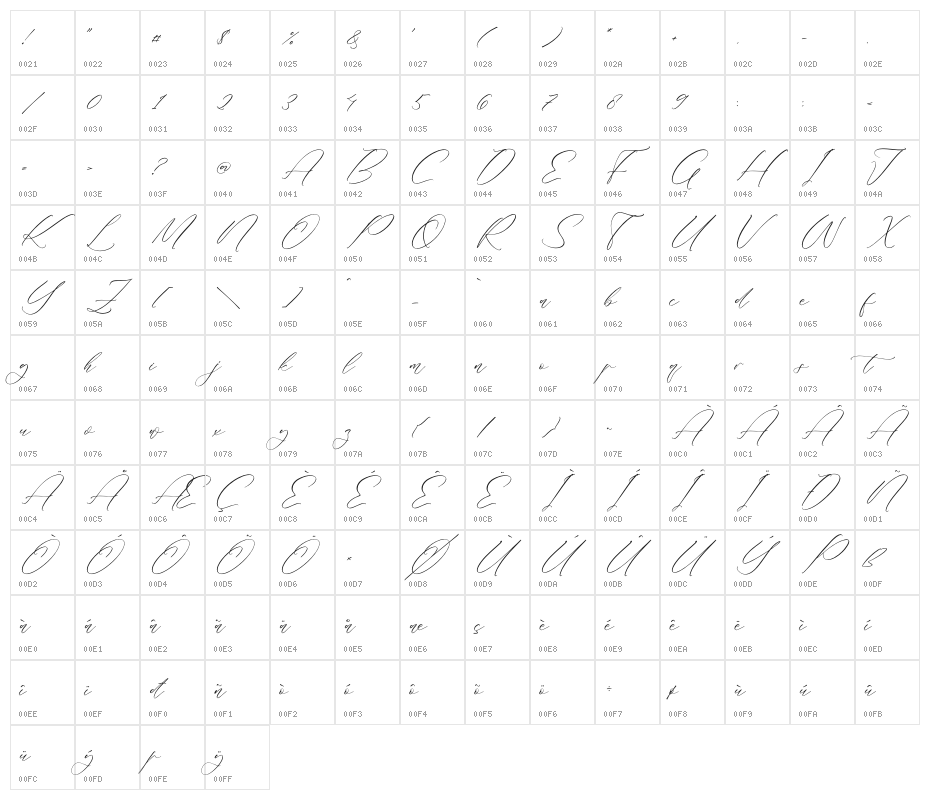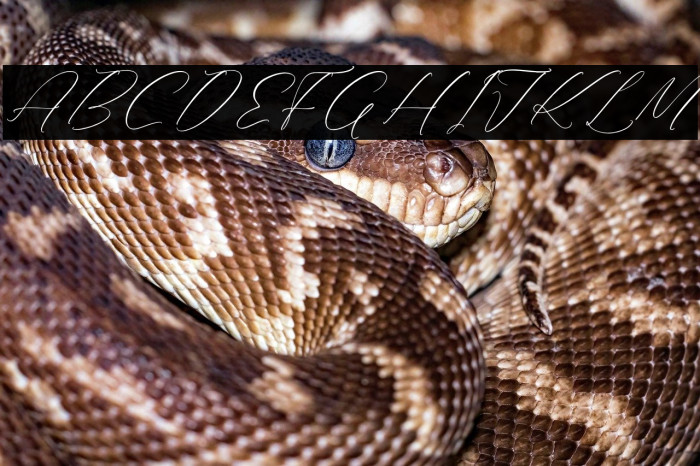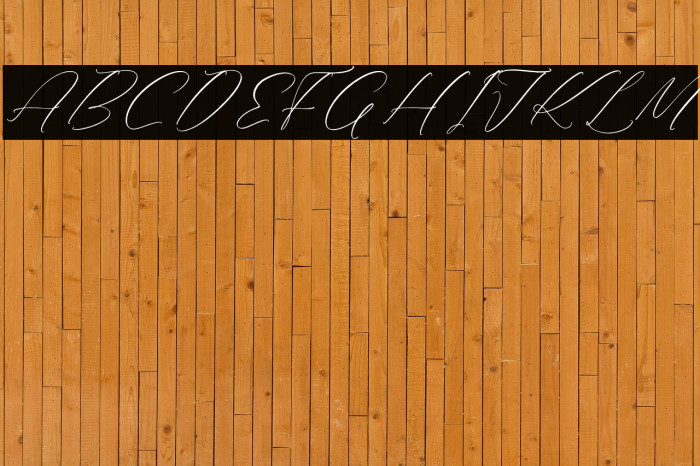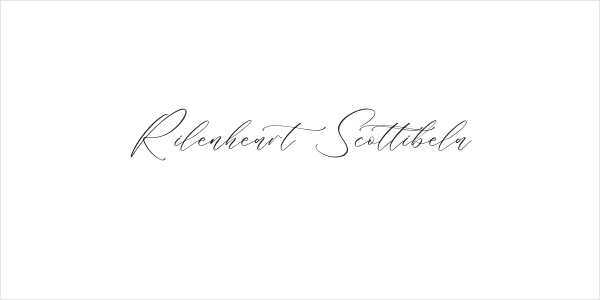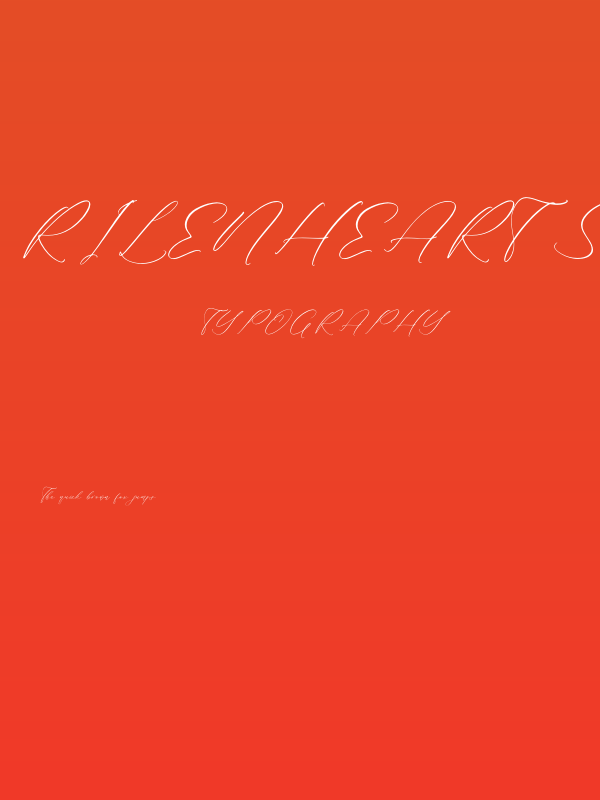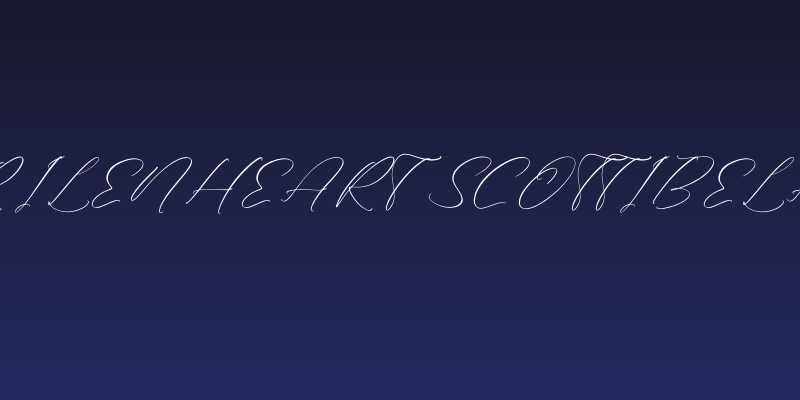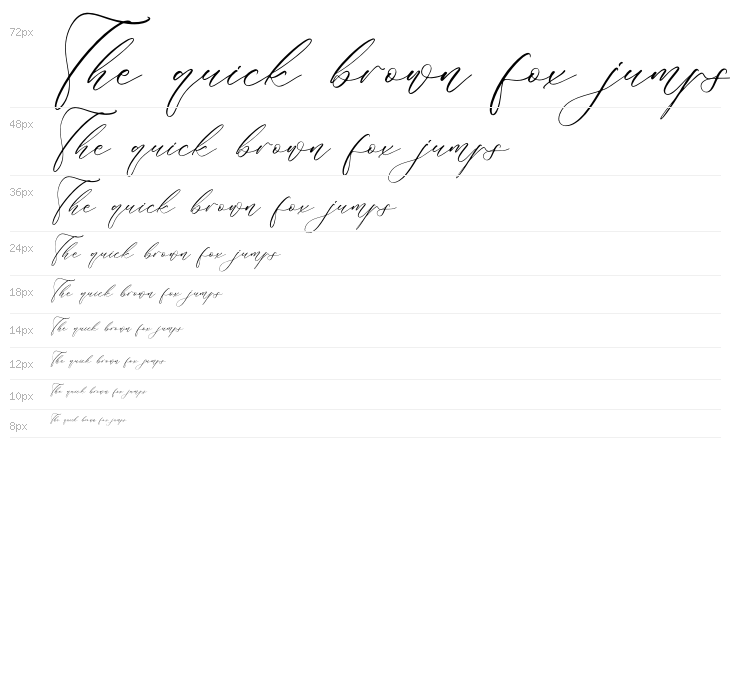
Rilenheart Scottibela Font
Rilenheart Scottibela Description
Elegant, flowing script font with delicate, thin strokes and a handwritten, calligraphic appearance. The characters are connected with graceful curves, and the overall look is airy and sophisticated.
| Overall Style | Decorative, Elegant, Handwritten |
| Use Case | Logos, Invitations, Decorative headlines |
| Proposed Projects | Wedding invitations, personal branding, elegant packaging, greeting cards, event signage. |